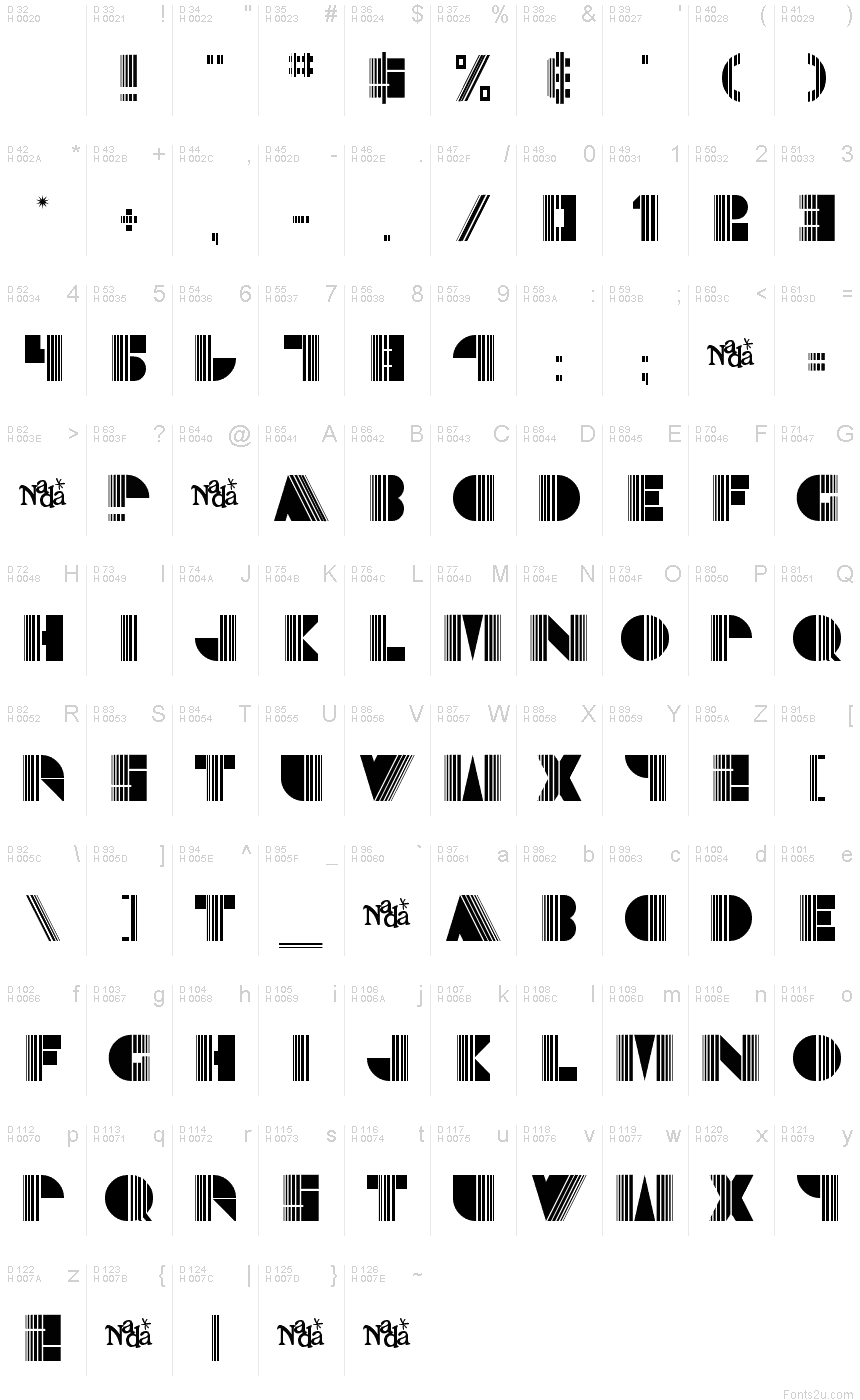
Echo Deco
Echo Deco font by R. Gast is a free groovy retro display typeface that turns every letter into a striped optical illusion. Thick black slabs collide with tight vertical pinstripes, creating bold, almost barcode-like textures that feel straight out of a ’70s nightclub sign or a sci‑fi title card. The circular forms and blocky rectangles feel dense and weighty, yet the white stripes slice through them like beams of light.
Using Echo Deco, headlines instantly gain a pulsing, rhythmic energy that grabs attention from across the room. This free font shines on album covers, event posters, club flyers, experimental logos, packaging, and bold social graphics where legibility is secondary to impact. Keep it large for maximum effect, and pair it with a clean geometric sans in small text to let its graphic stripes stay front and center.